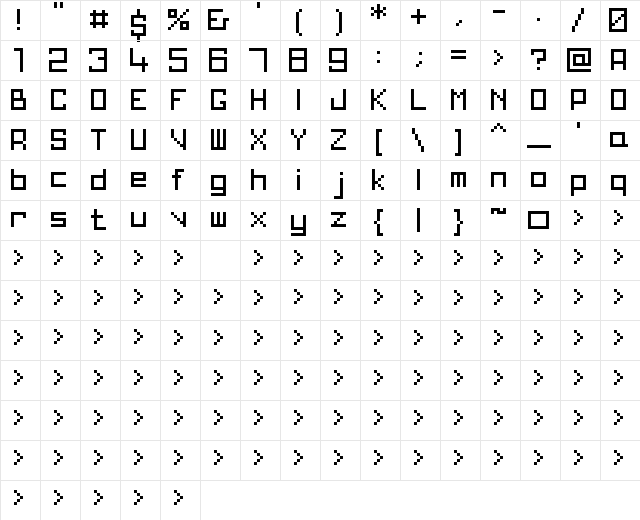
00Automatix Regular Free Font
00Automatix Regular
Design Context for 00Automatix
00Automatix is a composed and adaptable typeface that performs quietly and consistently across a wide range of design contexts.
Pro Tip: Use 00Automatix in both headline and body roles to test its range before committing to a single application.